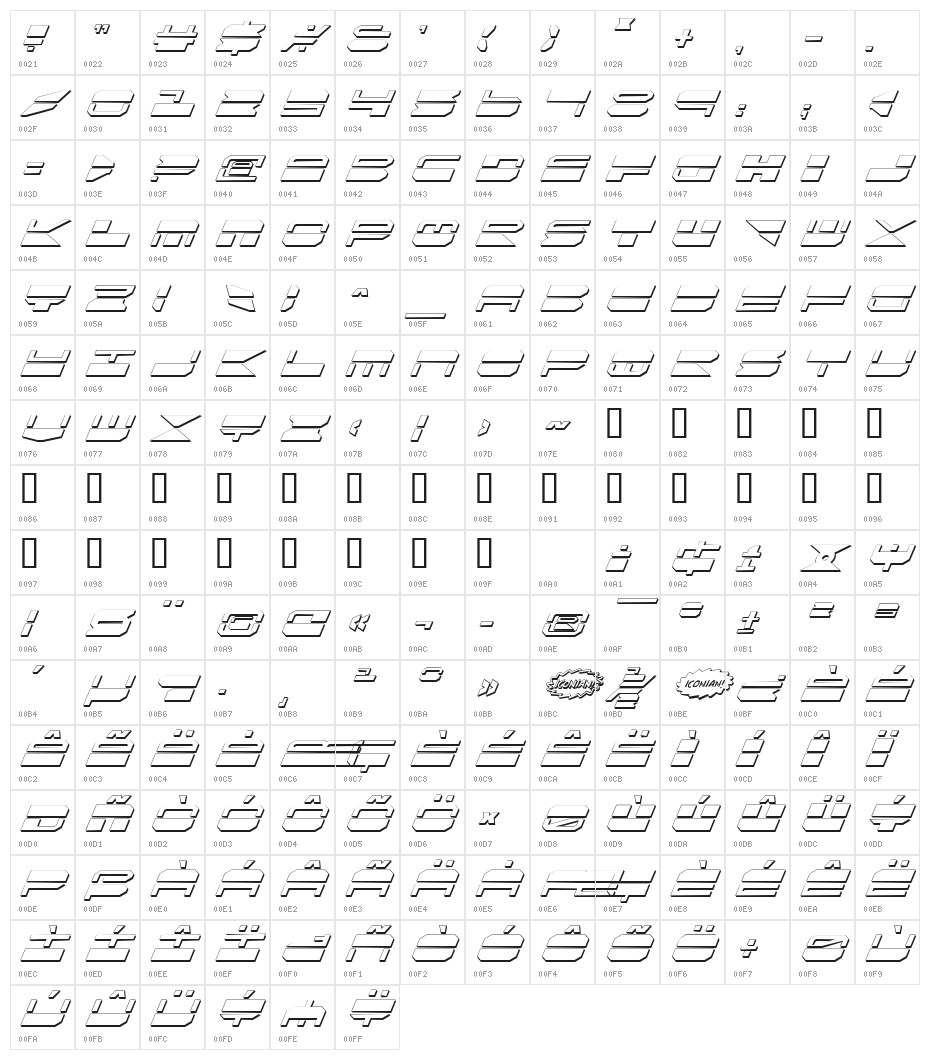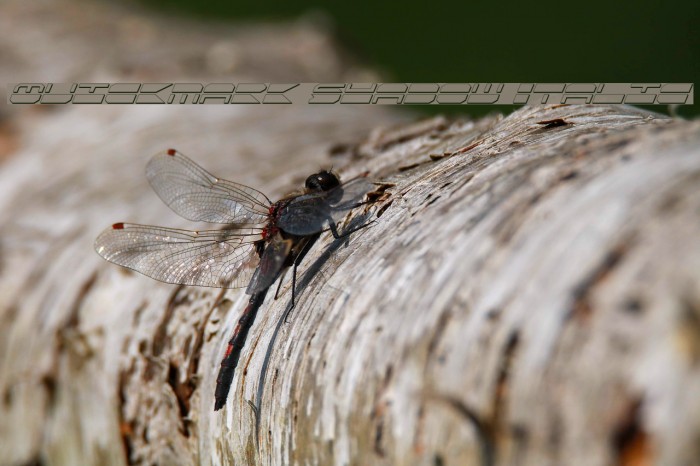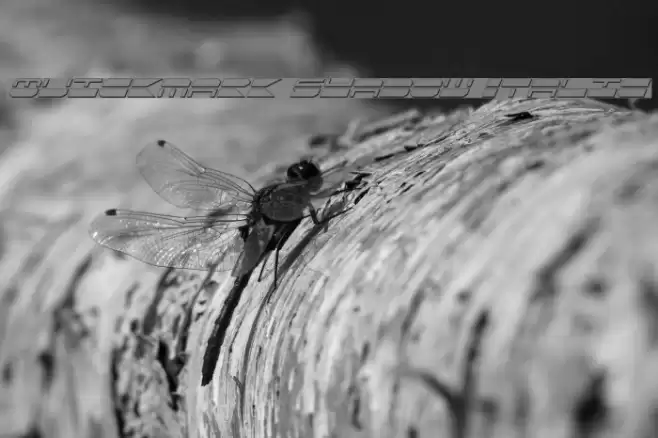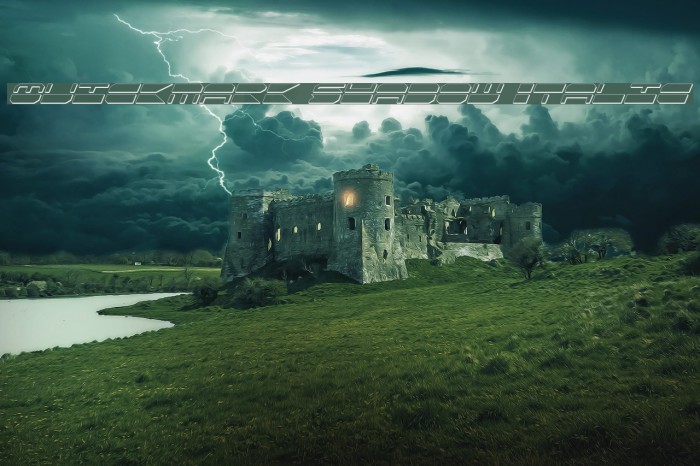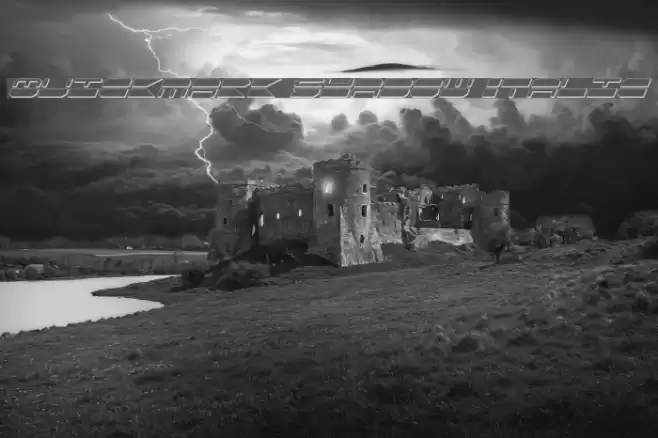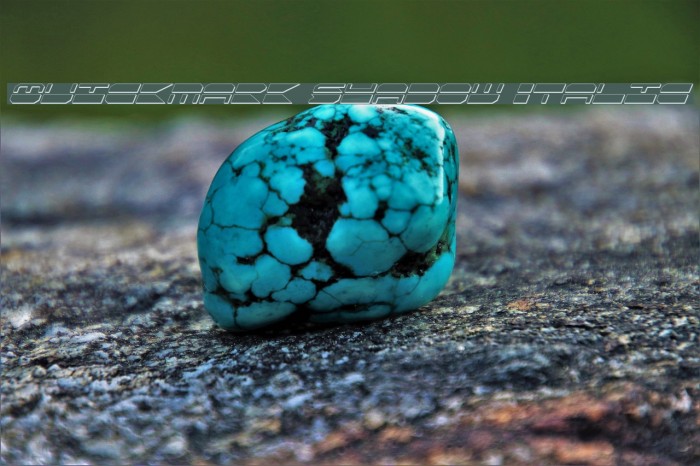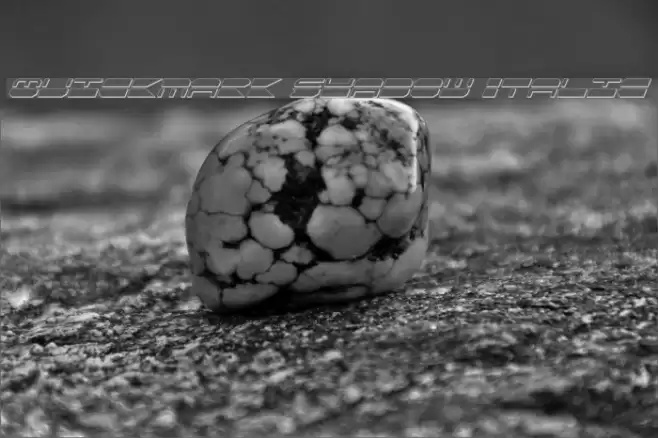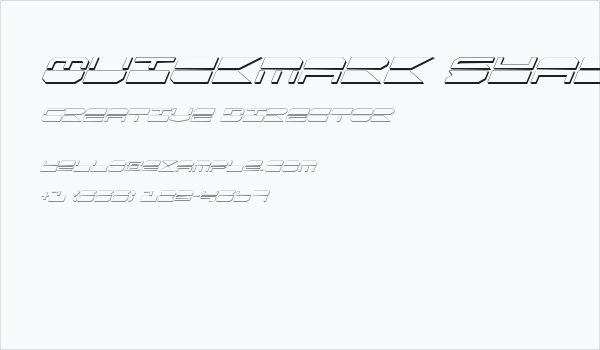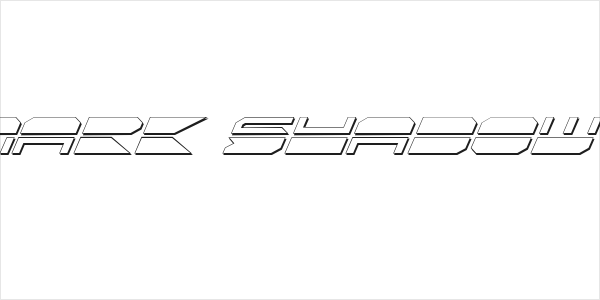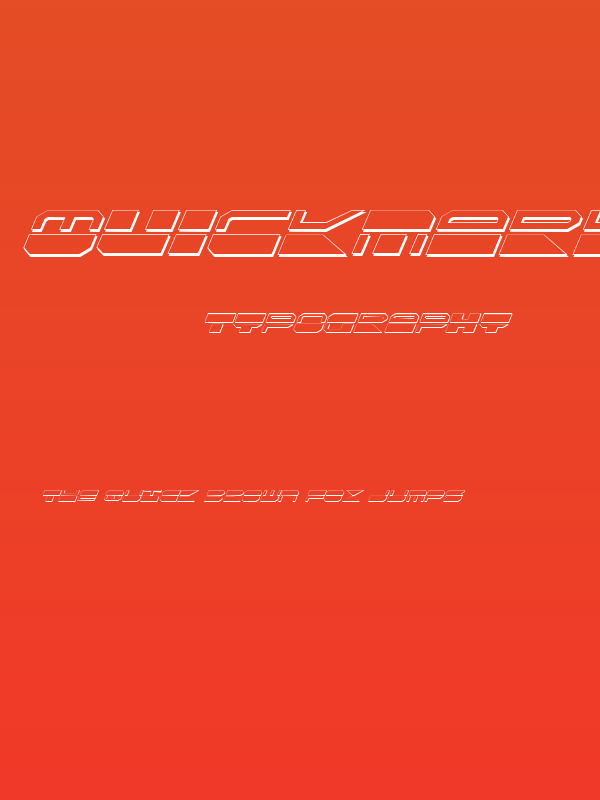
Quickmark Shadow Italic Font
Quickmark Shadow Italic Description
This font features a futuristic and dynamic design with a distinct shadow effect that gives each character a three-dimensional appearance. The italicized slant adds a sense of motion and speed, making it ideal for projects that require a modern and energetic look. The characters are outlined, providing a sleek and stylish aesthetic that stands out. The uppercase and lowercase letters maintain a consistent style, while the numerals and special characters complement the overall design. This font is perfect for creating eye-catching headlines, logos, and branding materials that need a contemporary edge.